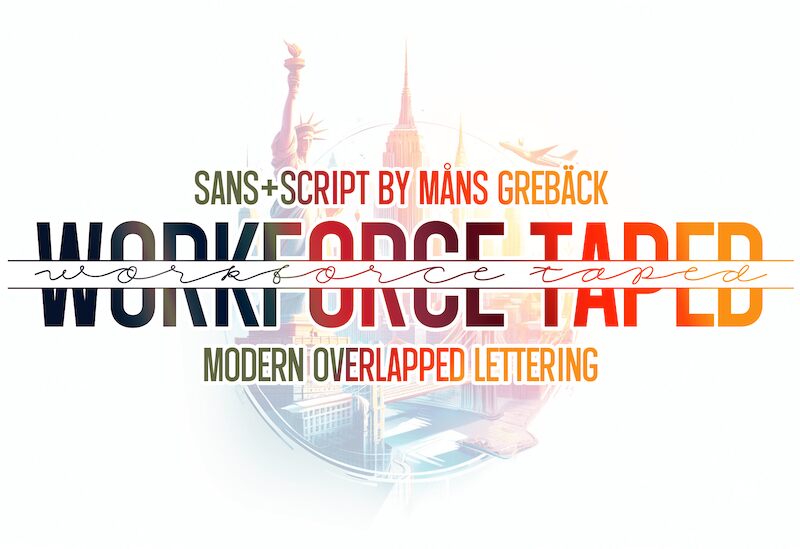
Workforce Taped font, created by Mans Greback, features a striking and original design that is suitable for contemporary projects. An alphabet with a strong sense of visual hierarchy is what Workforce Taped was developed to develop. The font takes two dynamic directions, the first being an authoritative tone and presence while the other highlighting more approachable handwritten qualities.
Use it on motivational posters, logos and branding material, signage designs, book covers, advertisements campaigns of all kinds. Workforce Taped can also be tried on magazine covers and spreads or website headers; you could even experiment with packaging labels or Pinterest/Instagram posts.